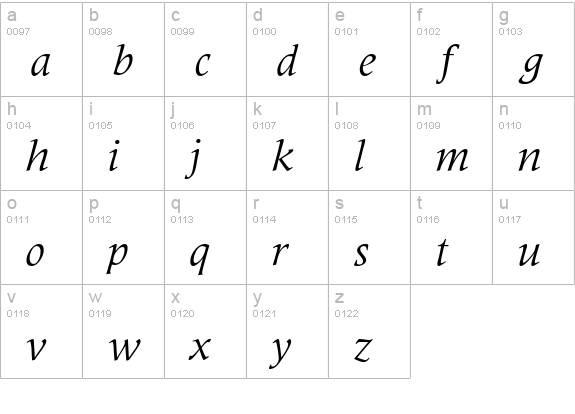
M690-Roman-Italic Font Details
M690-Roman-Italic is a distinctive, italic variant in the M690 typeface family \xE2\x80\x94 well suited to design and typography projects.
The M690-Roman-Italic font is a classic and elegant typeface that exudes sophistication and charm. Its stylish and sleek design makes it perfect for a wide range of projects, from branding to editorial design. The flowing curves and delicate serifs give this font a timeless appeal that is sure to elevate any design it is used in. What makes the M690-Roman-Italic font even more appealing is that it is available for free download at FontsMarket.com. This means that you can easily access and use this stunning font in your projects without any cost. Whether you are a professional designer looking for a versatile typeface or a hobbyist seeking to add a touch of elegance to your creations, the M690-Roman-Italic font is a fantastic choice that won't break the bank. Download it today and see how it can enhance your designs!